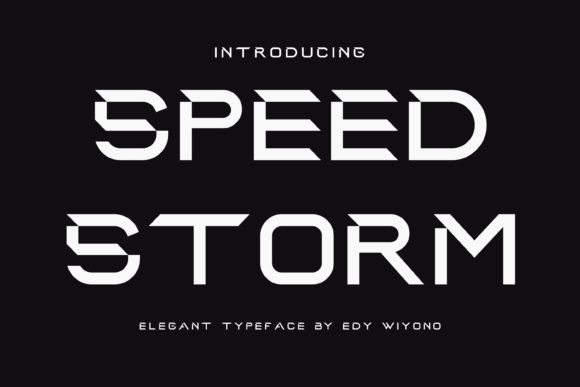
Unleash the adrenaline-fueled typography with Speed Storm Font, the ultimate display font that embodies the essence of modern speed and futuristic aesthetics. Designed by the creative genius edywiyonopp, Speed Storm is not just a font; it's a visual symphony that transforms your designs into captivating masterpieces.
Immerse yourself in the world of contemporary graphic design with Speed Storm's bold and distinct letterforms. Its sleek and streamlined curves evoke a sense of motion and dynamism, making it the perfect choice for capturing the essence of speed and exhilaration.
Let your imagination soar as you explore the endless possibilities of Speed Storm. Its versatility knows no bounds, from high-octane sports designs to immersive movie posters, from captivating book covers to electrifying flyers and posters.
Speed Storm is a font that speaks to the modern creative, the one who embraces innovation and pushes the boundaries of design. Its unique style adds an instant touch of sophistication and edge to any project, leaving a lasting impression on your audience.
Don't settle for ordinary fonts that blend into the background. Choose Speed Storm and watch your designs ignite with energy and captivate the attention of all who see them. Its bold and distinctive presence demands attention, making it the perfect choice for creating unforgettable brand logos, eye-catching headlines, and impactful marketing materials.
With Speed Storm as your design companion, you'll have the power to transform mundane words into powerful statements. Its futuristic style adds a touch of intrigue and mystery, inviting viewers to explore the depths of your creative vision.
Join the revolution of modern typography and embrace the Speed Storm Font. Its sleek curves and sharp angles will leave an indelible mark on your audience, ensuring that your designs stand out from the crowd. Dare to be different, dare to be bold, and let Speed Storm elevate your creativity to new heights.